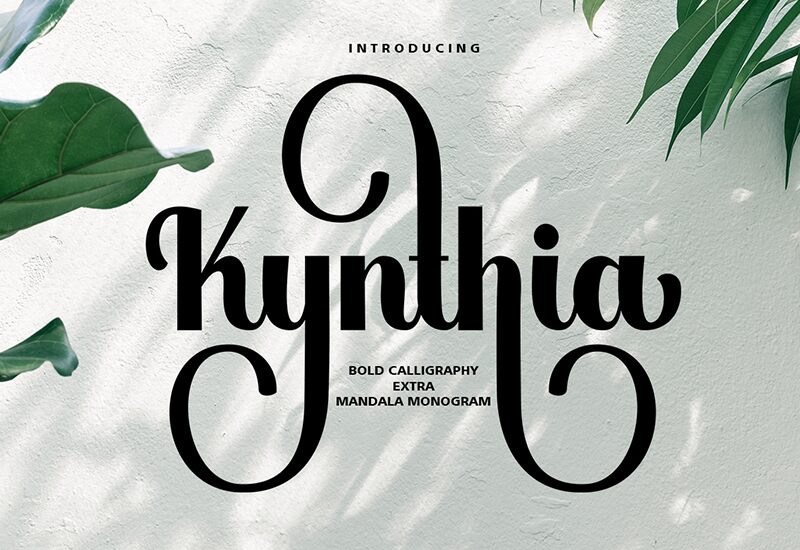
Kynthia, crafted by the talented Akifatype Studio, is a captivating calligraphy font that exudes elegance and grace. Its semi-bold weight adds a touch of modernity to its traditional brushstroke style.
Ideal for wedding invitations, gourmet menus, and luxury branding projects, Kynthia effortlessly captures attention with its fluid lines and intricate details. This versatile font typeface is equally suited for bold headlines or delicate script text, making it a must-have in any designer's toolkit.
Elevate your projects with Kynthia's timeless charm and make a lasting impression on your audience.